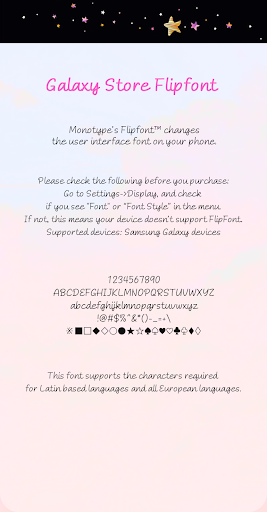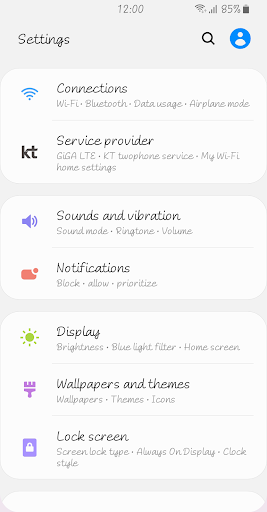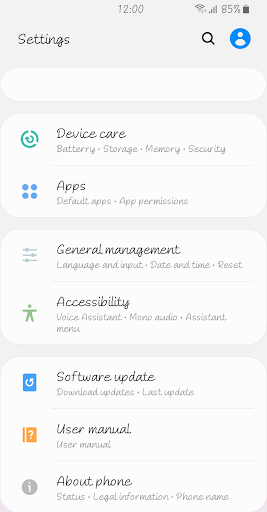
ZF Dreamer
This font is a comfortable and softly written pen writing style font.
The slant and smooth transitions that leave traces of handwriting make the letters more lively.